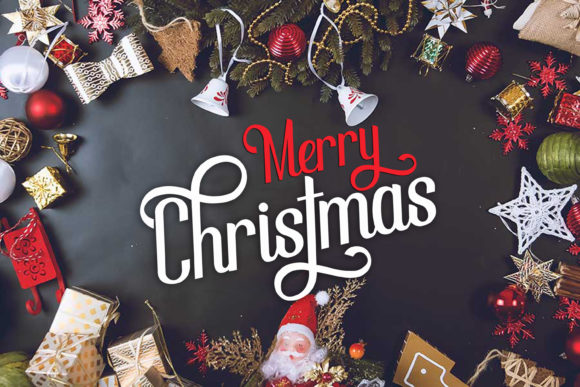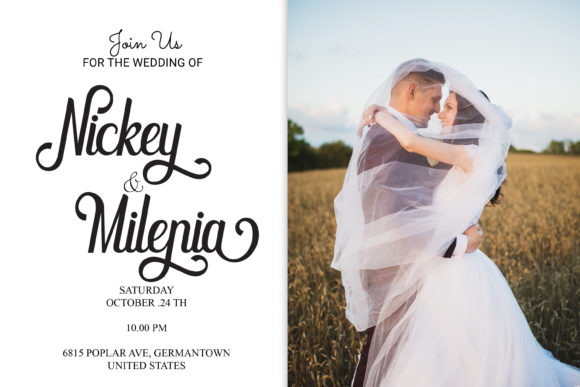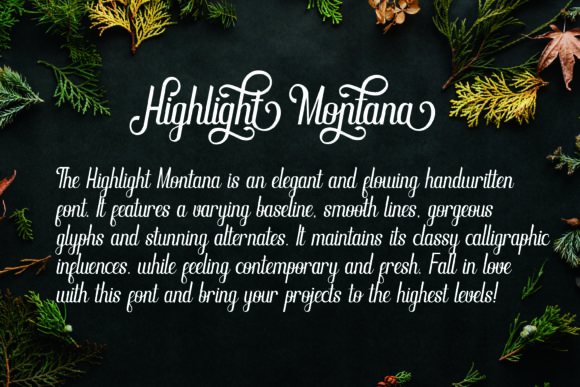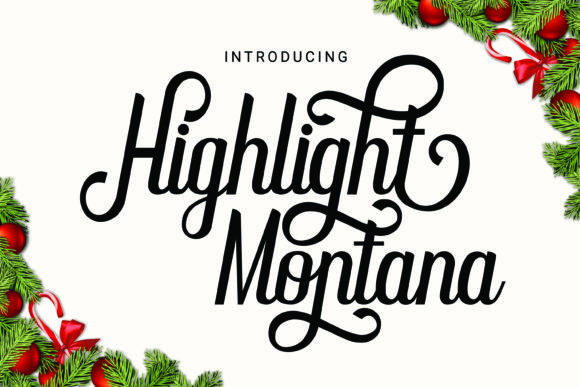
Introduction to Highlight Montana Font
Highlight Montana is an elegant script font with a contemporary atmosphere and impeccable form, inspired by timeless classic calligraphy.
Key Features of Highlight Montana Font